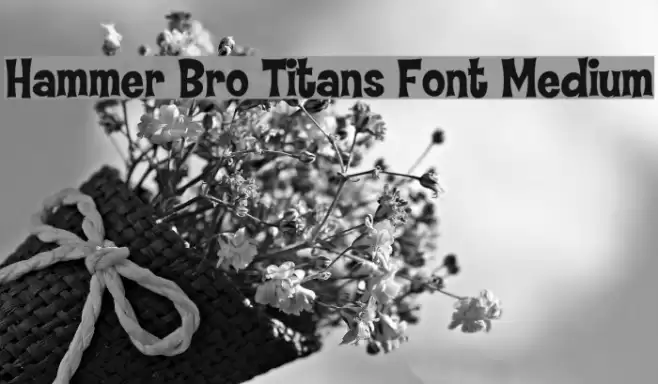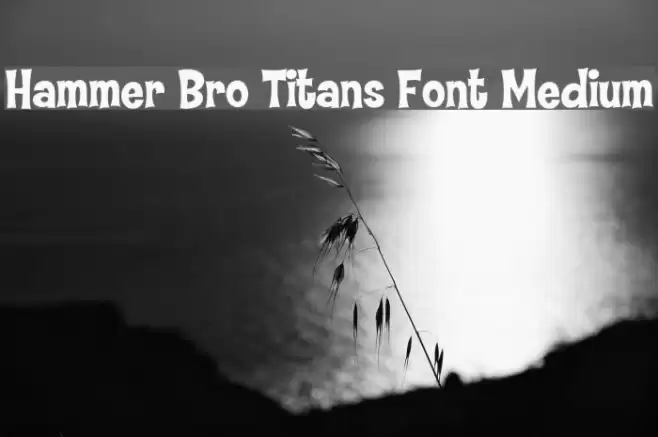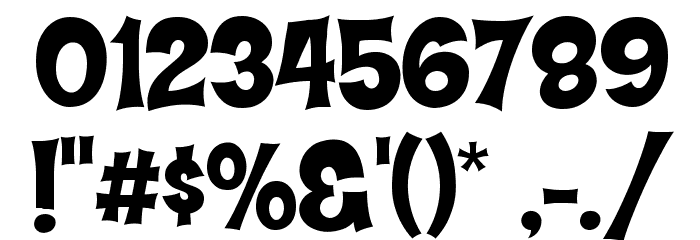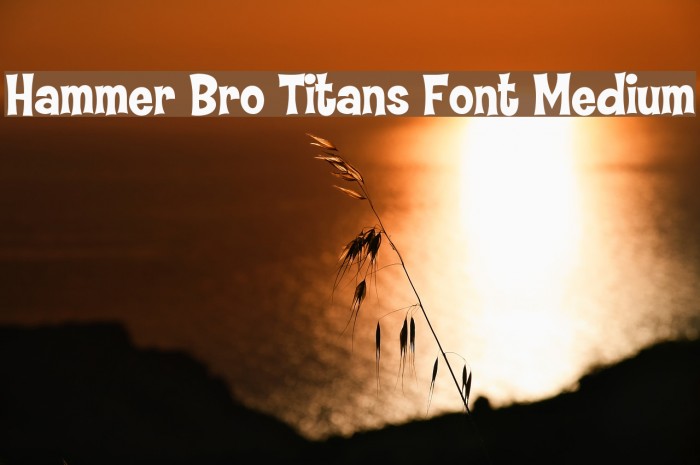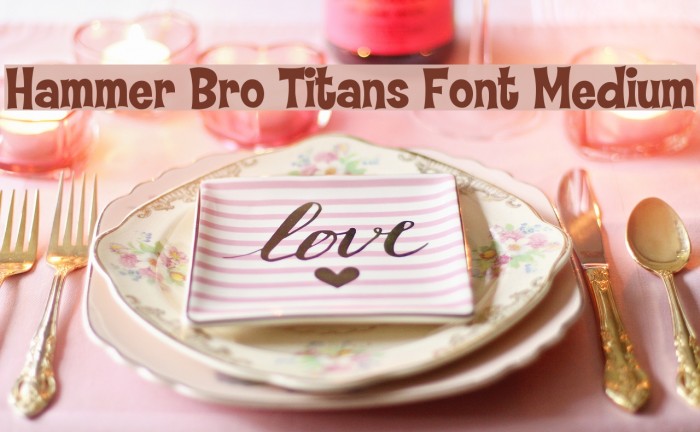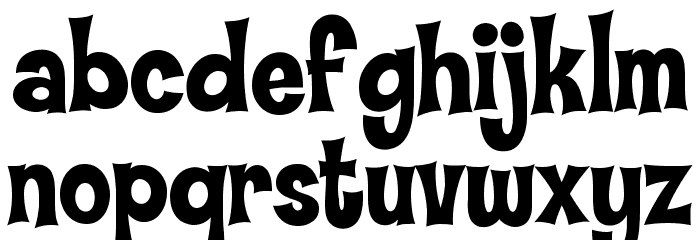
Hammer Bro Titans Font Medium Font
Hammer Bro Titans Font Medium Description
This font features bold, playful characters with a strong presence, making it ideal for attention-grabbing designs. The letters have a whimsical, cartoonish style with exaggerated curves and varying stroke widths, adding a dynamic and energetic feel. The uppercase and lowercase letters maintain a consistent style, while the numerals and special characters complement the overall aesthetic. The font's unique design elements make it suitable for creative projects that require a fun and lively touch.
A bold, playful font with cartoonish, exaggerated curves and dynamic strokes from Uncategorized fonts.
- Proposed Projects: Ideal for children's books, comic strips, playful branding, and eye-catching posters.
- Overall Style: Playful, Energetic, Whimsical